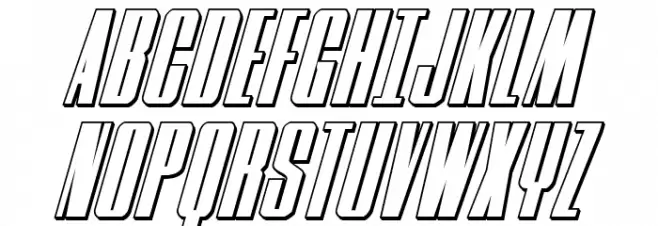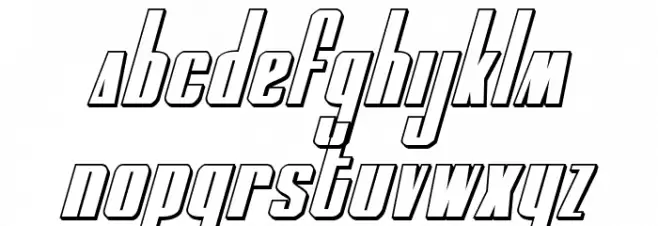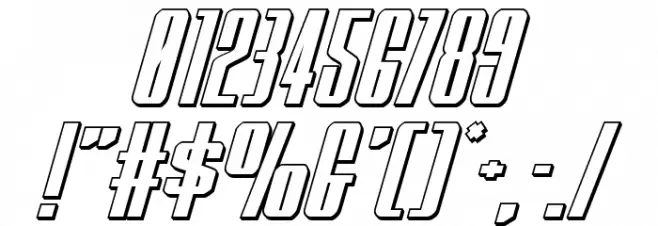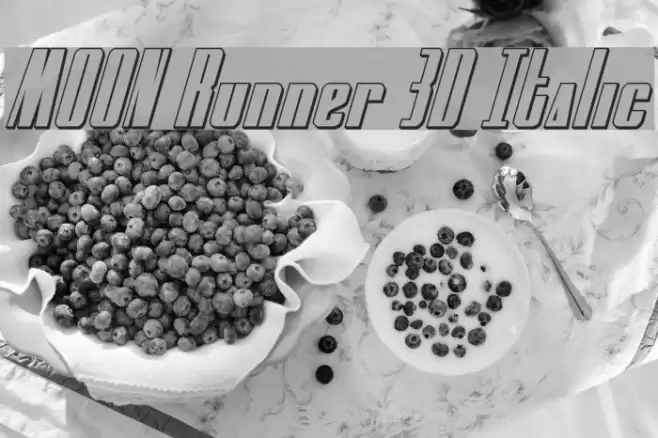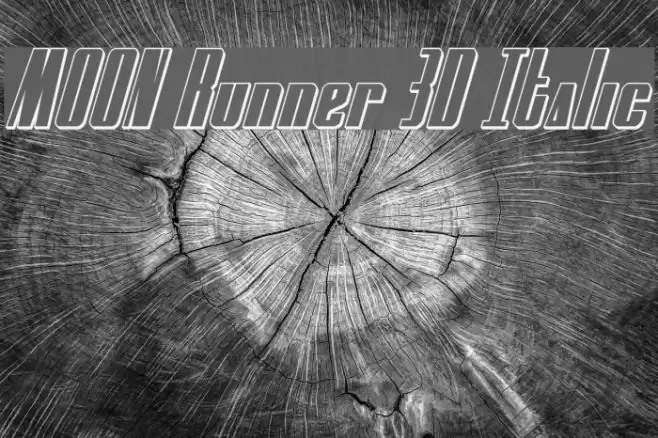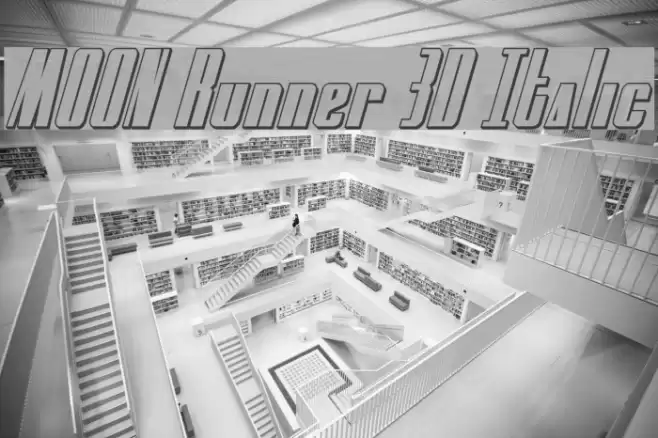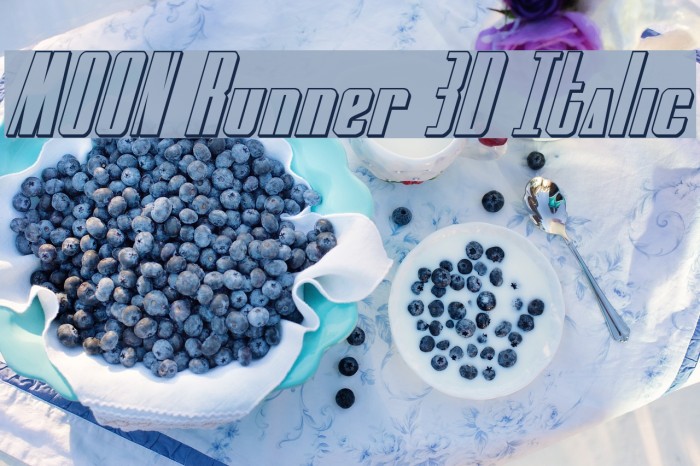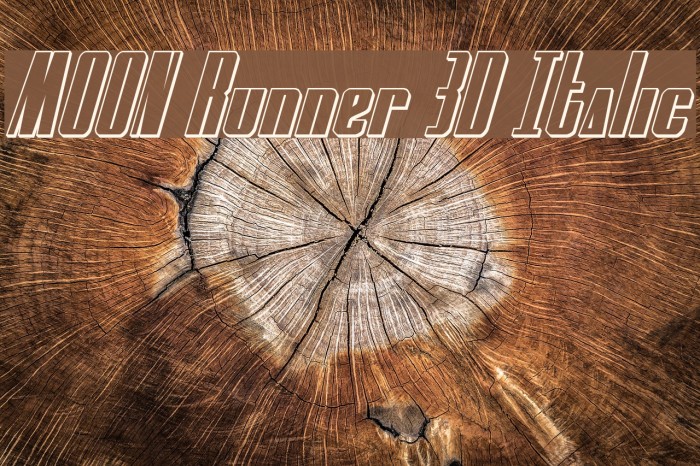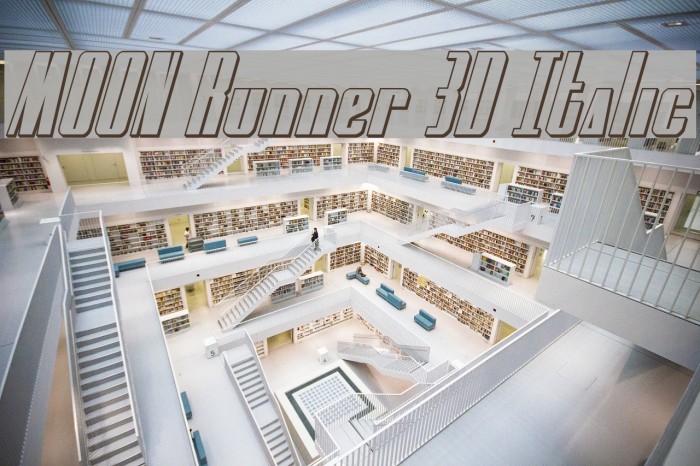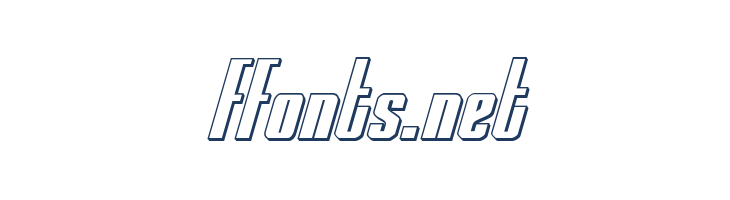
MOON Runner 3D Italic
This font features a bold, italicized style with a distinct 3D effect, giving it a dynamic and futuristic appearance. The uppercase and lowercase letters are designed with sharp angles and clean lines, creating a sense of movement and speed. The numbers and special characters maintain this aesthetic, ensuring consistency across all glyphs. The font's outline adds depth, enhancing its three-dimensional look. It's well-suited for projects that require a modern and energetic feel, such as gaming titles, tech branding, or sports-related designs.
A bold, italicized font with a 3D effect, perfect for dynamic and futuristic designs.
- Proposed Projects: Ideal for gaming titles, tech branding, sports-related designs, and dynamic posters.